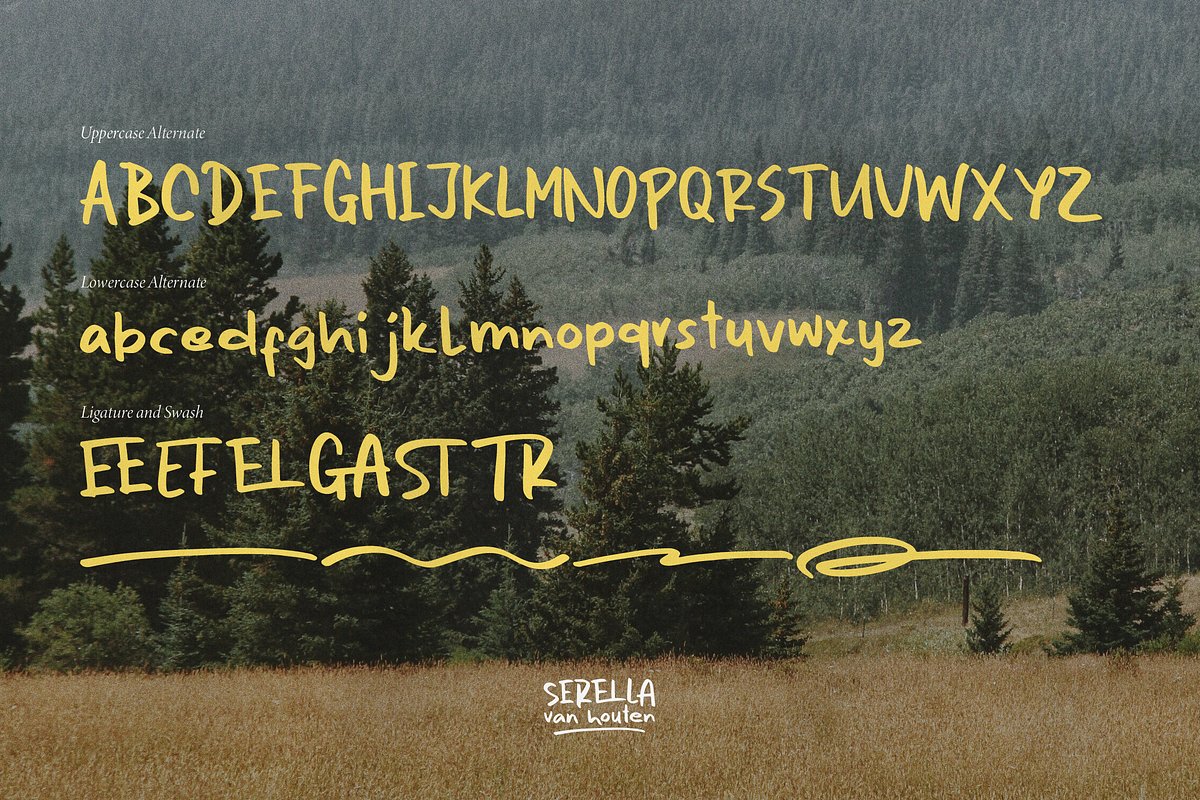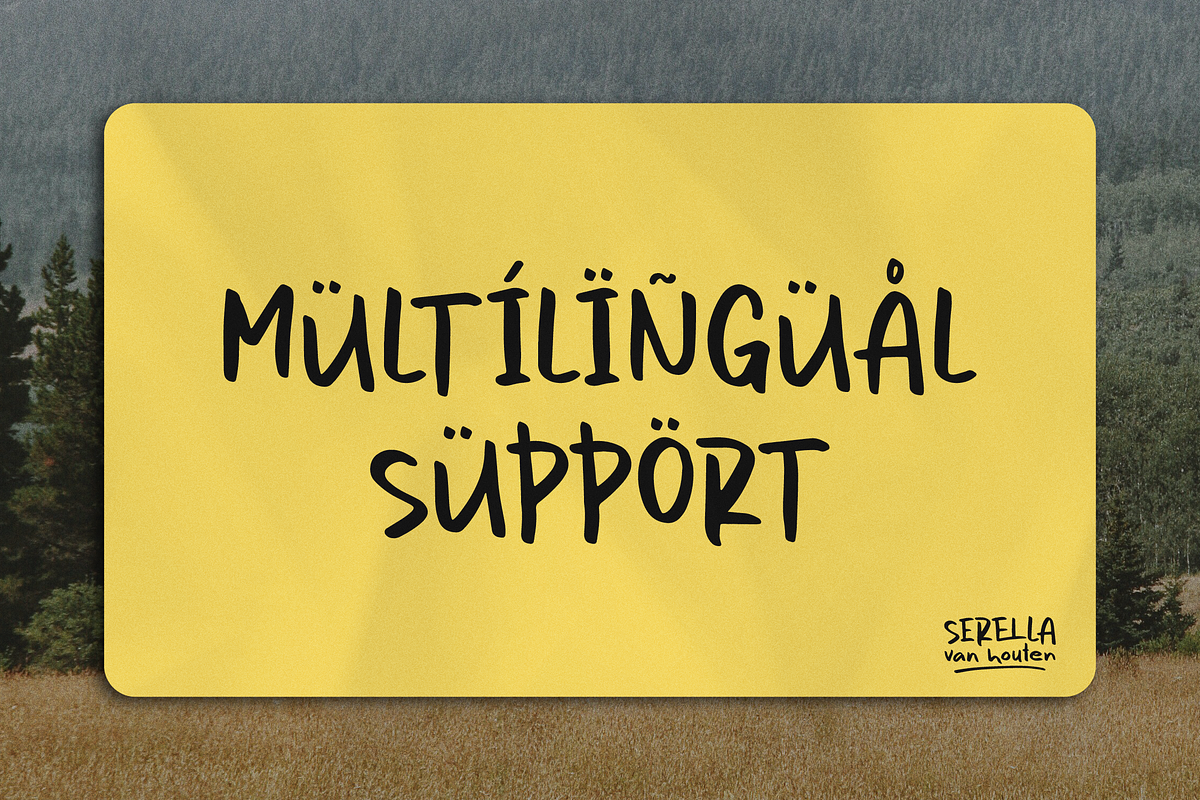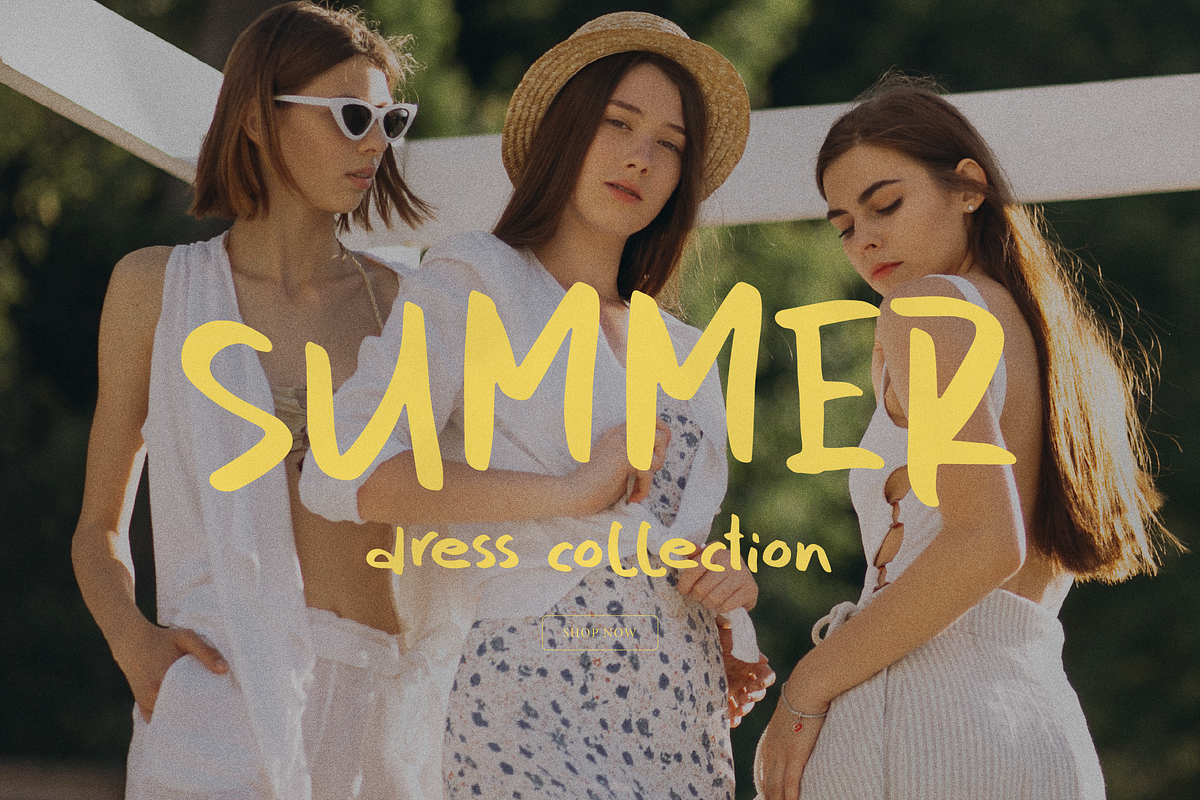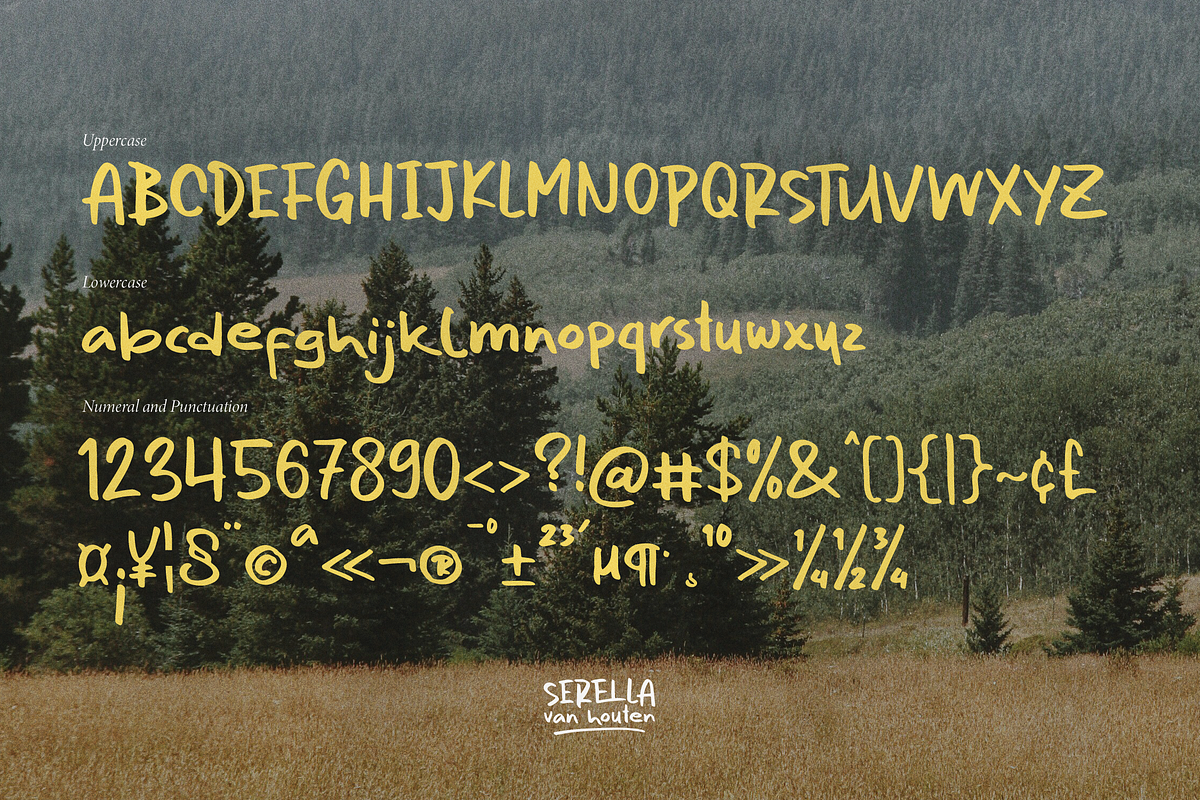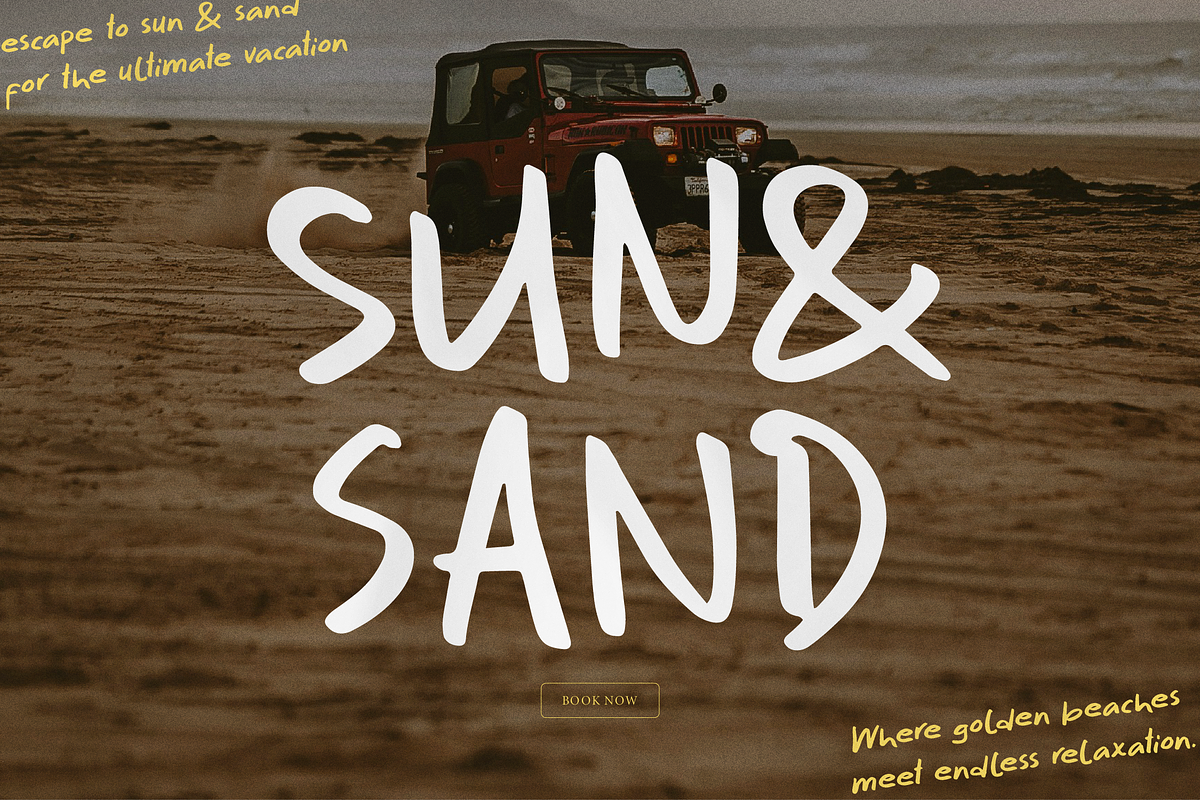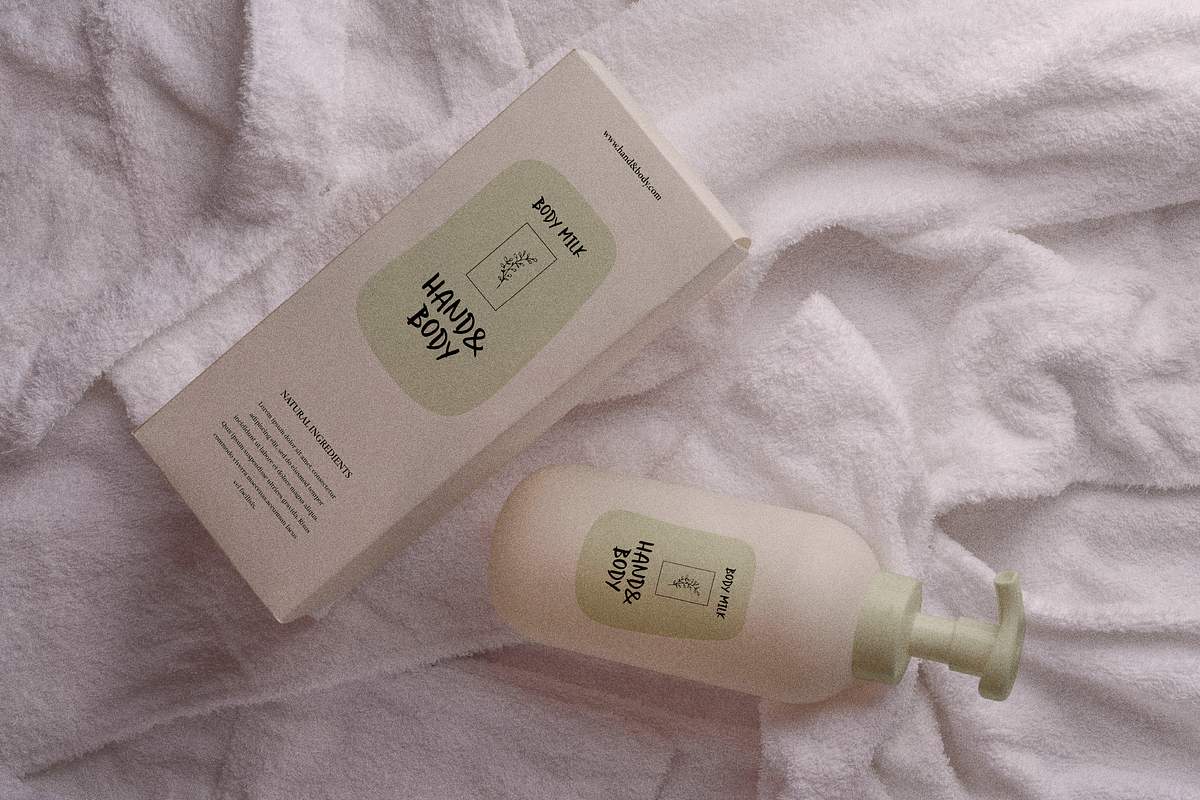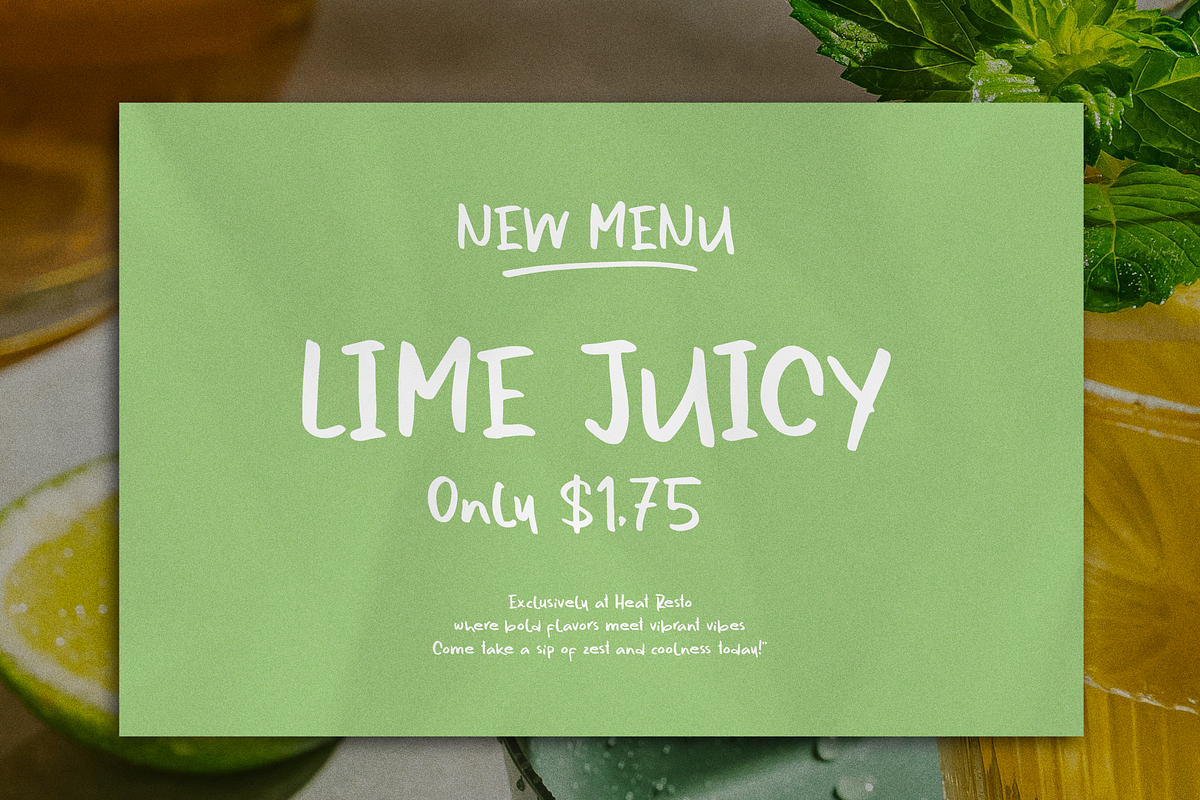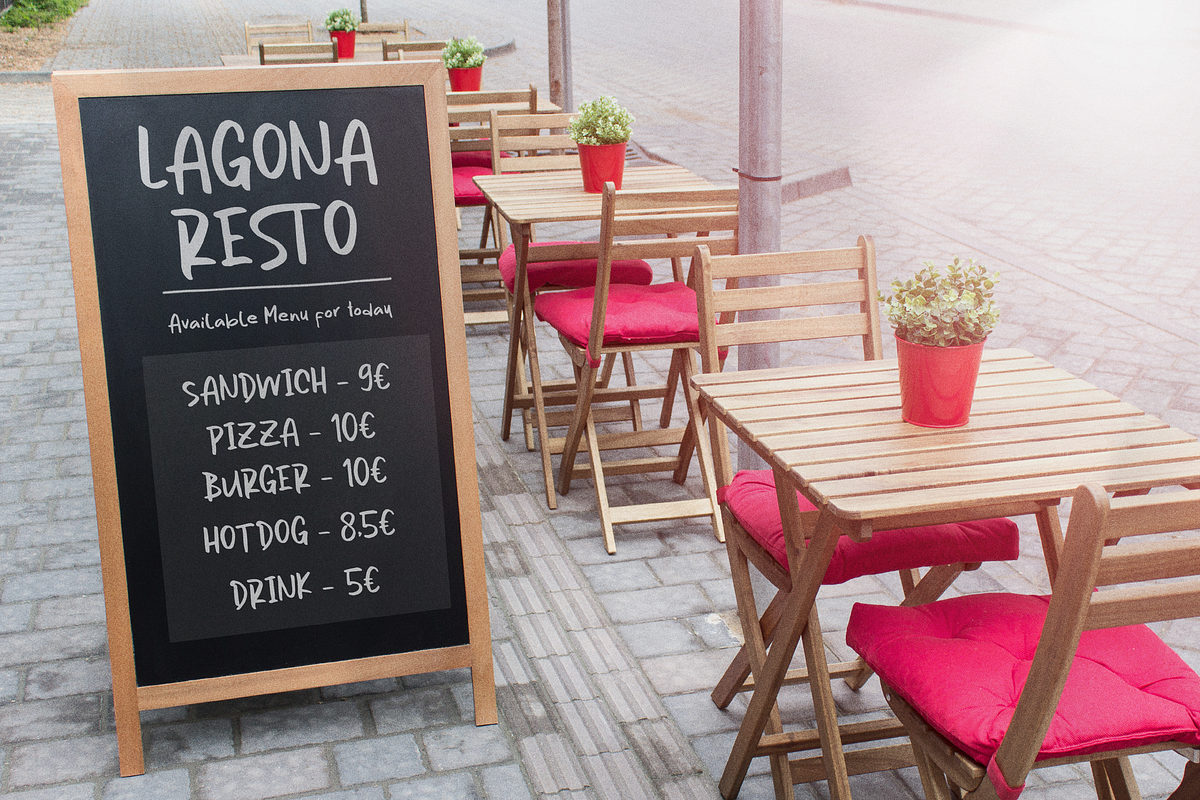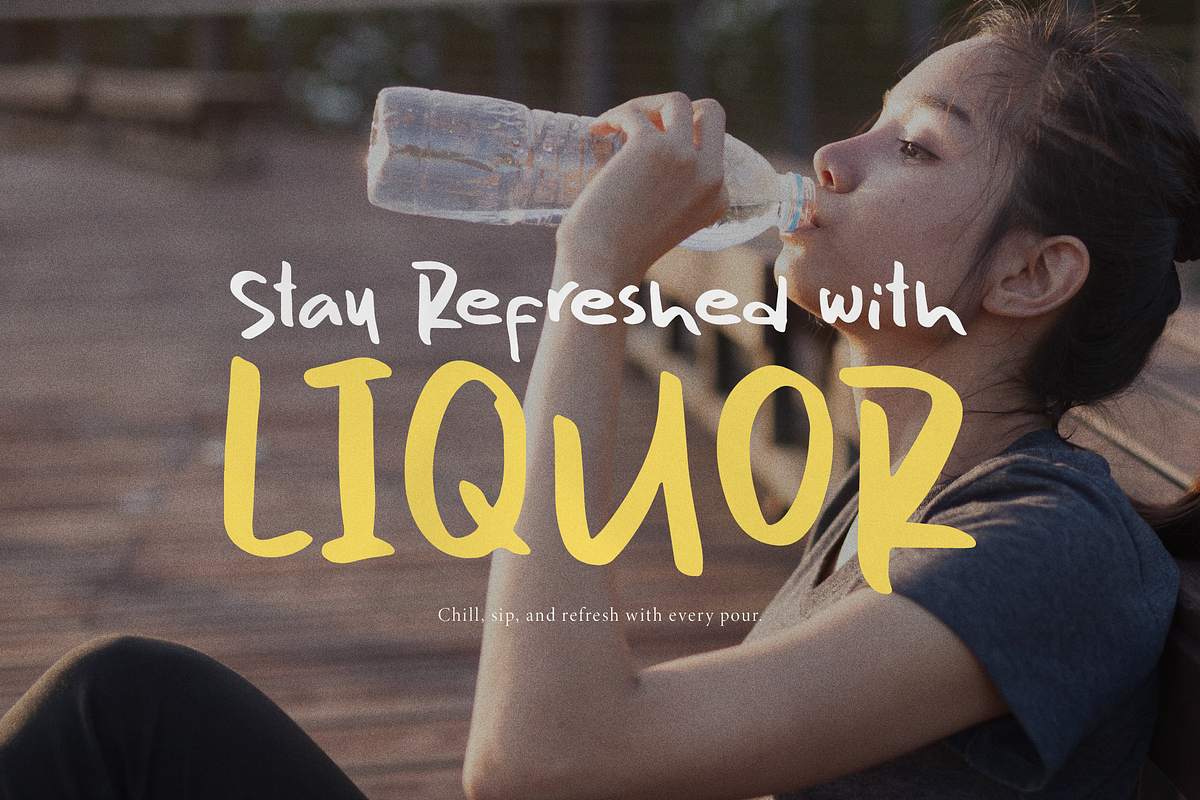
Serella van Houten | Hand Drawn Font
Serella van Houten | Hand Drawn Font, from Denustudios, suitable for any projects such as: logos, branding projects, homeware designs, product packaging, mugs, quotes, posters, shopping bags, t-shirts, book covers, name card, invitation cards, greeting cards, label, photography, watermark, special events, and all your other lovely projects that need a Hand Drawn Font taste.